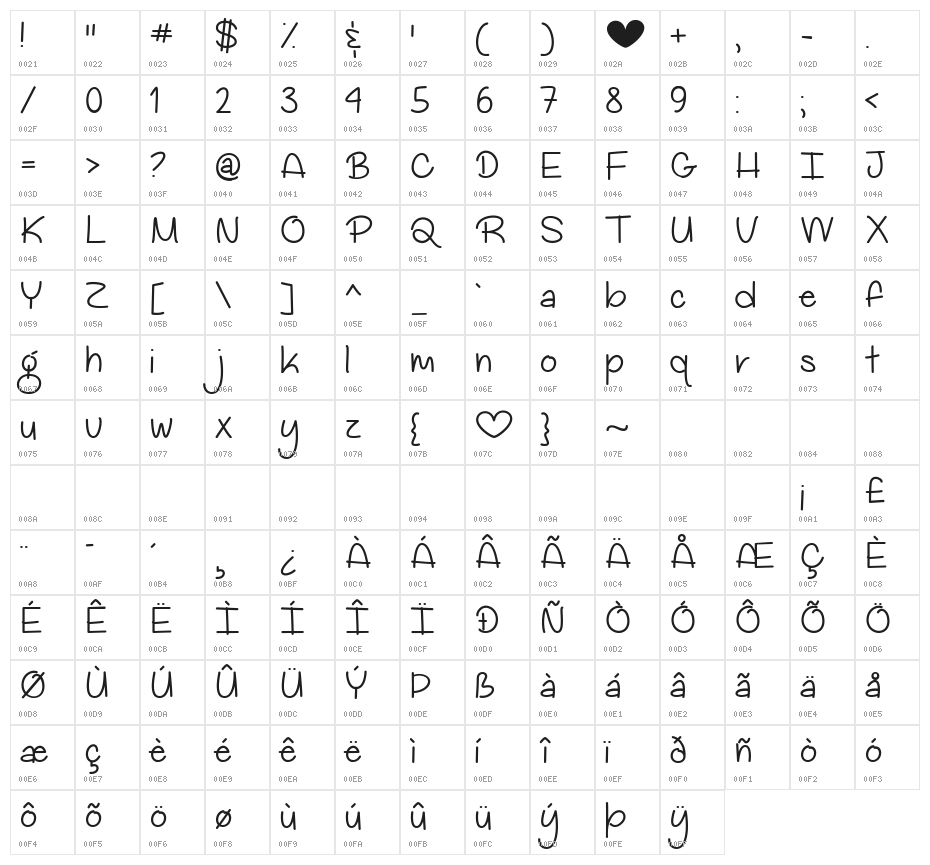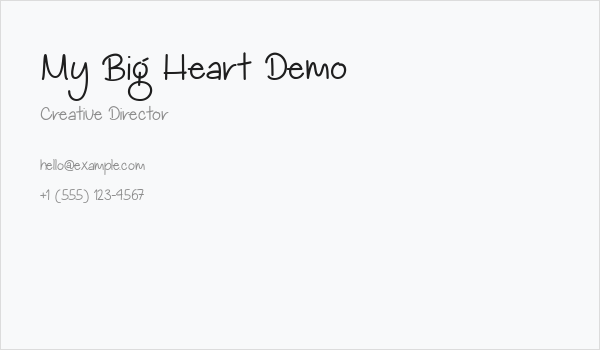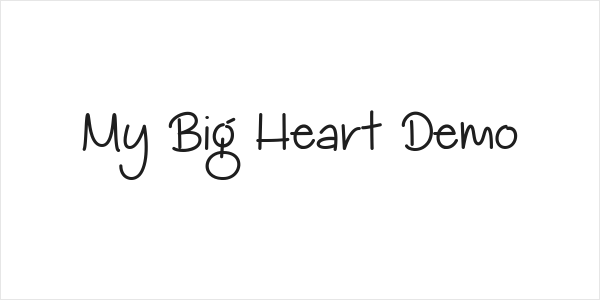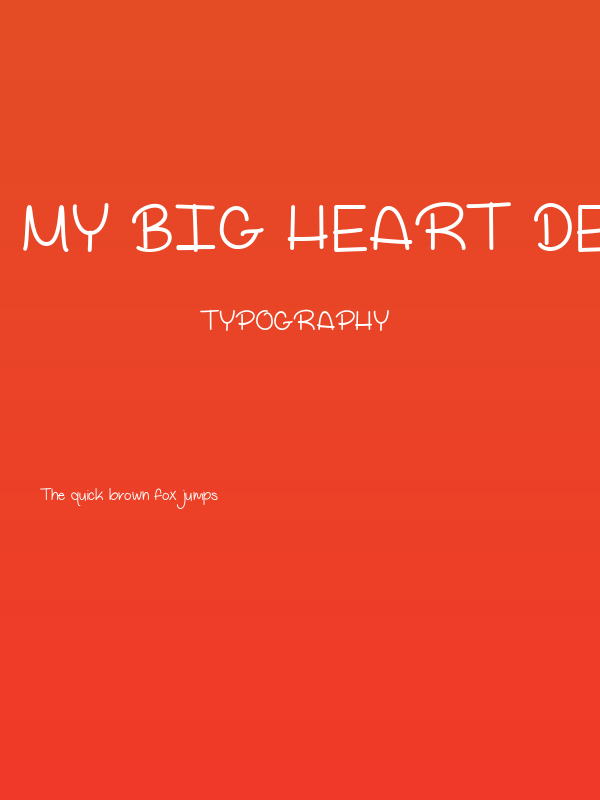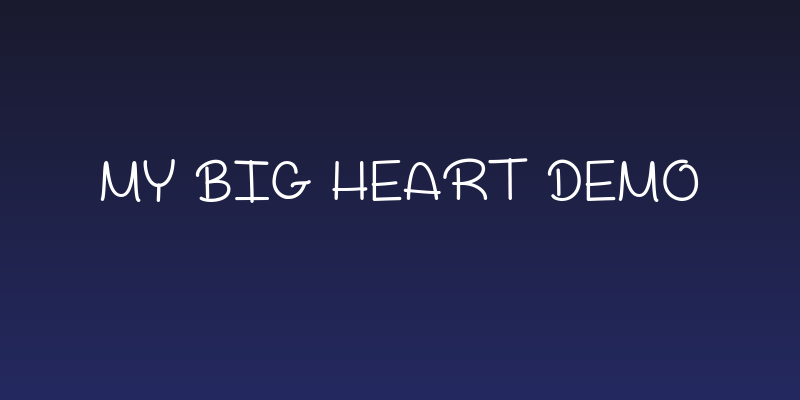
My Big Heart Demo Font
My Big Heart Demo Description
This playful and whimsical font features a handwritten style with smooth, rounded edges and a casual, friendly appearance. The characters are slightly irregular, adding to the charm and informal feel. The uppercase and lowercase letters maintain a consistent flow, while the numbers and special characters complement the overall design. The font's unique personality is highlighted by its heart symbol, which adds a touch of warmth and creativity. It's perfect for projects that require a personal, approachable touch.
| Use Case | Greeting cards, Children's books, Playful branding |
| Proposed Projects | Ideal for greeting cards, children's books, playful branding, and personal projects. |